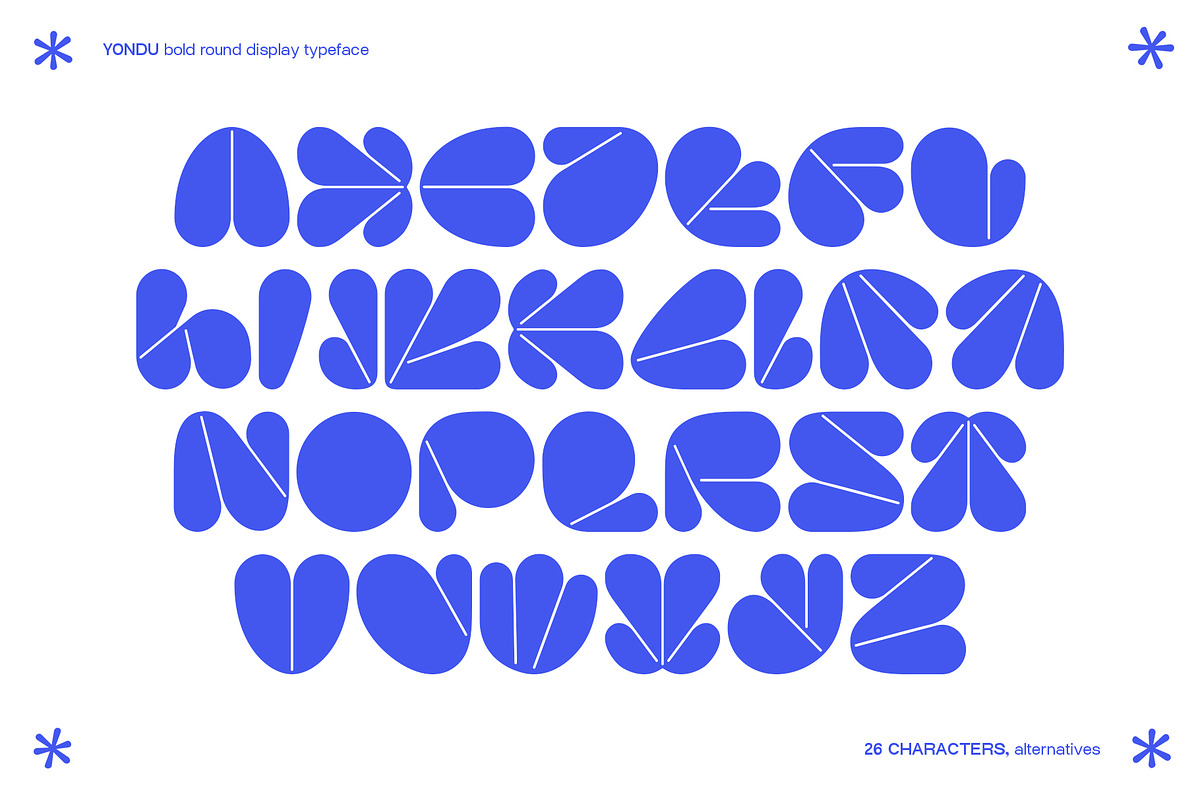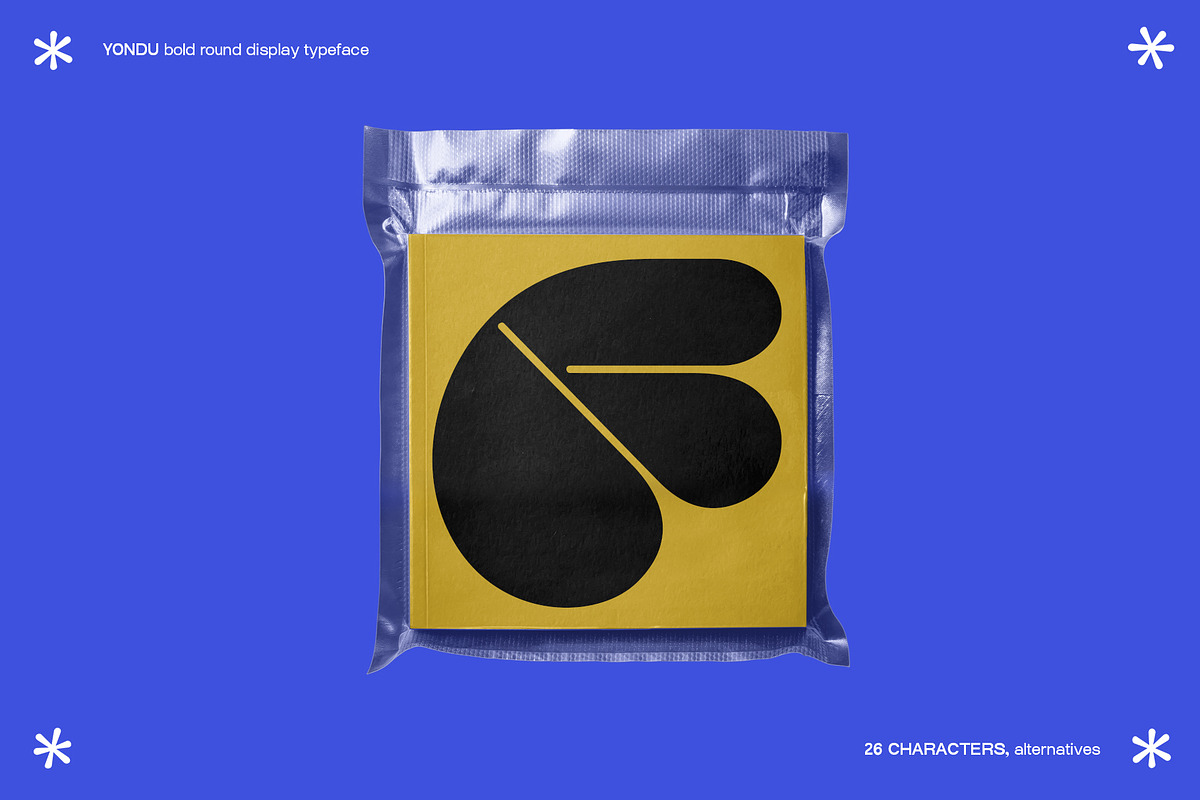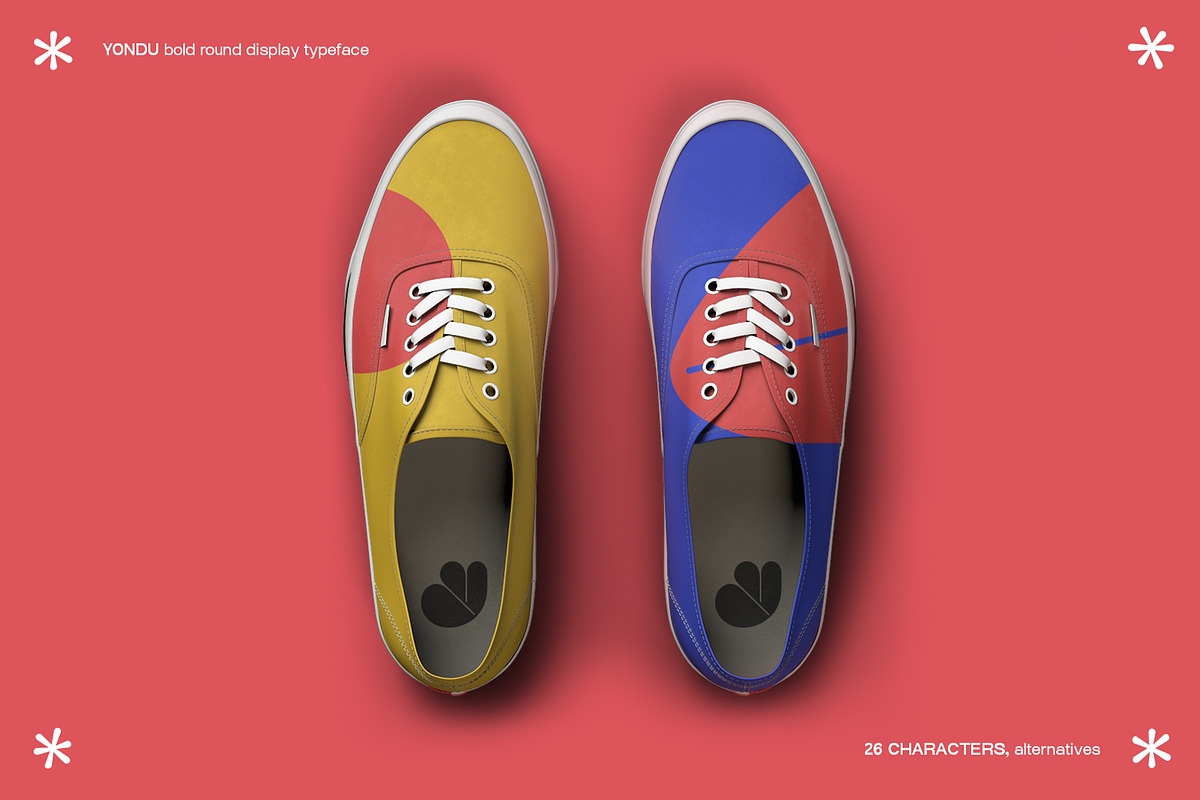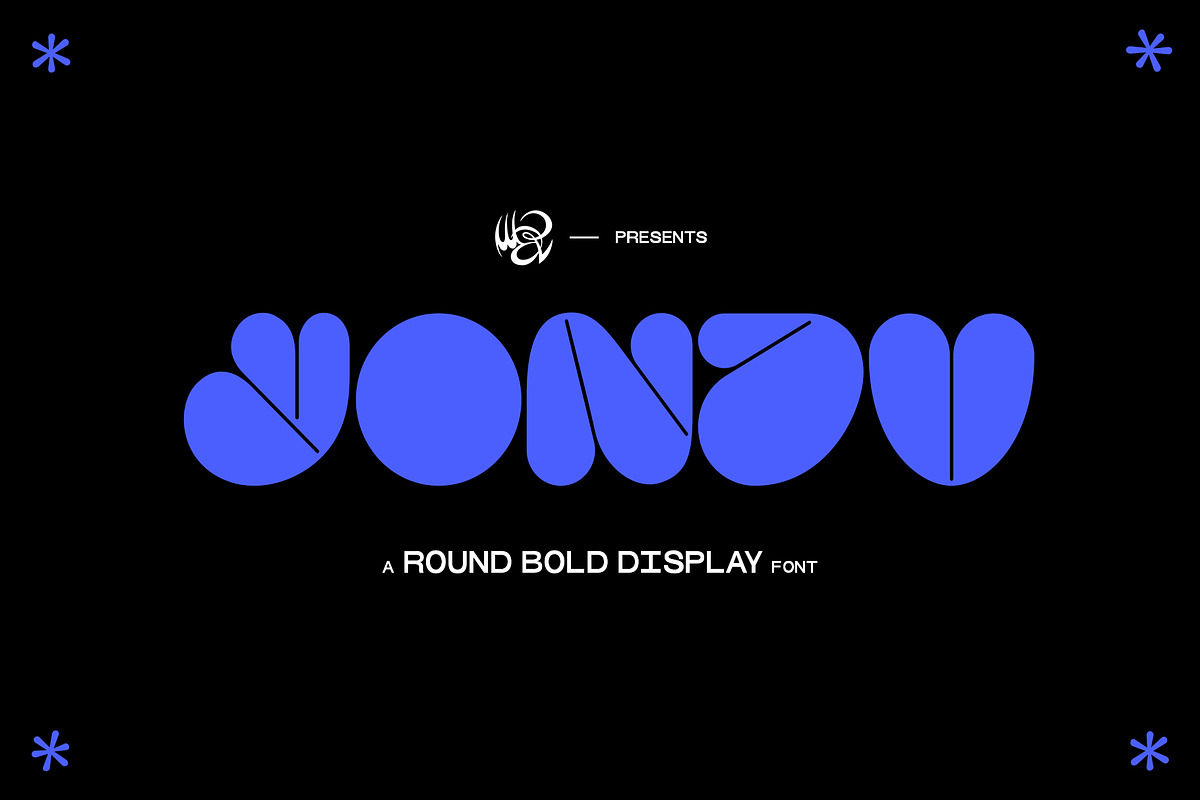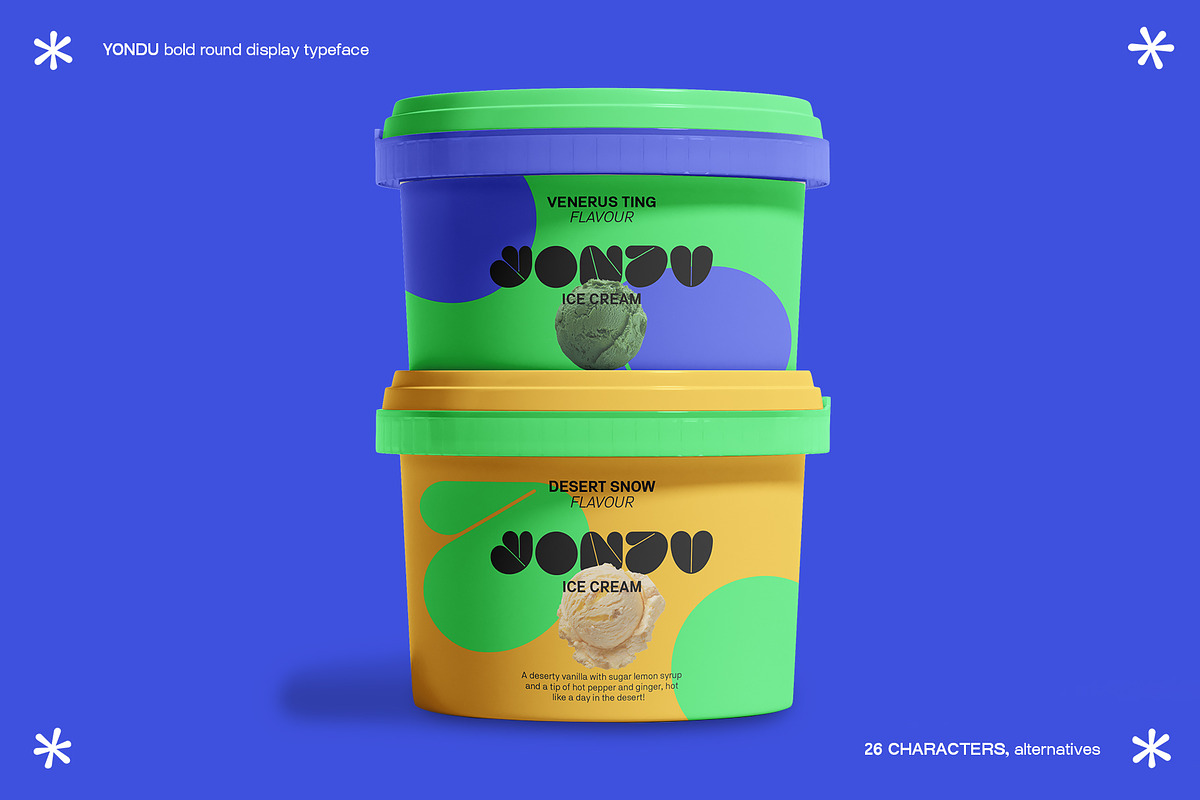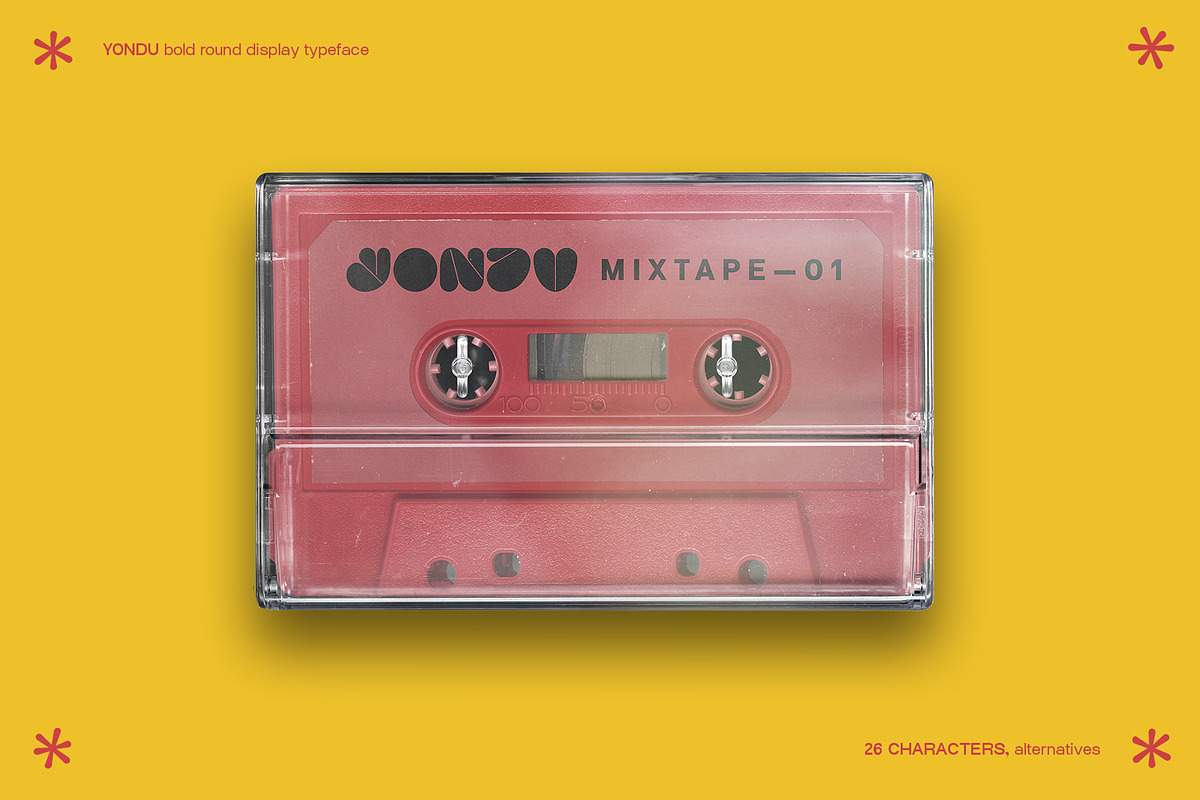
YONDU bold round display typeface
YONDU is a new unique round bold display typeface inspired by Kodak's logo and one of the amazing Hmazali's Ys. This is a really friendly and playful font that can be go well with really bright and strong colors like shown in the examples. It comes with all 26 characters and with some alternatives. I wouldn't recommend to use this font to write long texts and in small pts, it can become really hard to read because of its thin lines that, like needles, are popping into our balloony letters, without popping them. This is a perfect font to create big heads, titles, logos, posters, events, patterns, merch and much more!